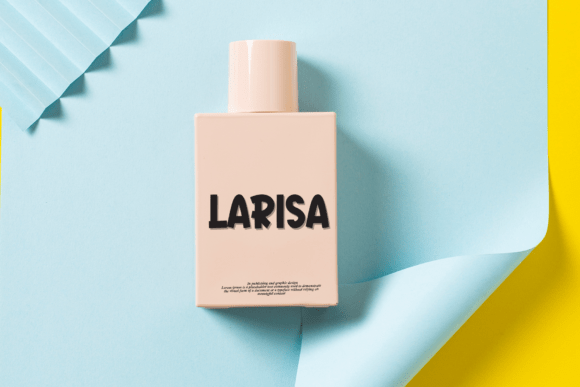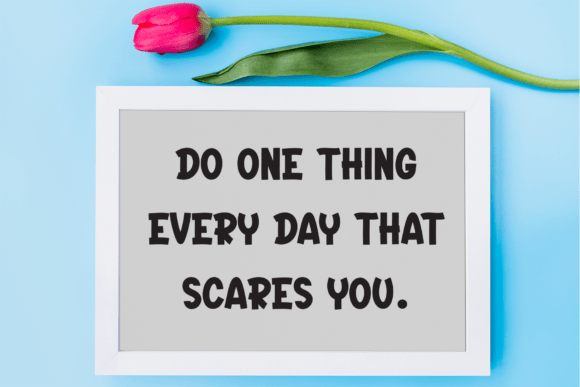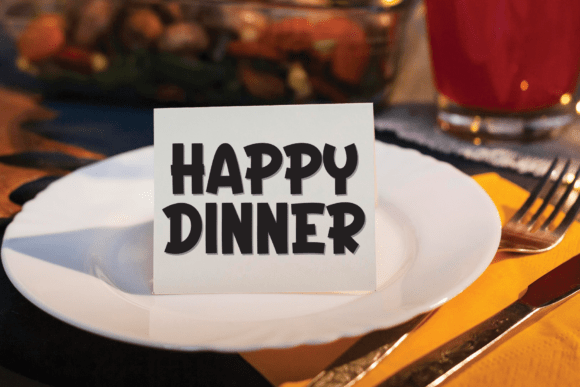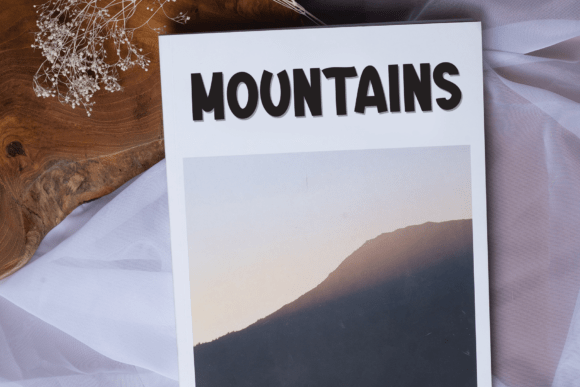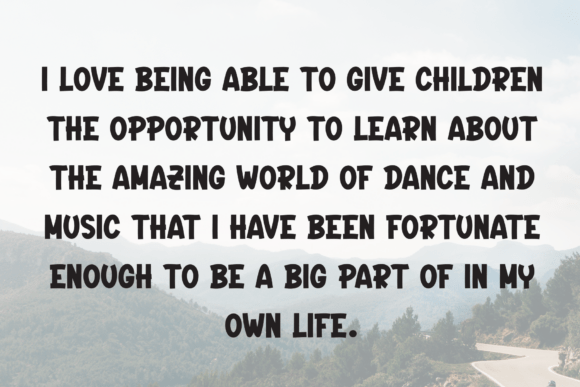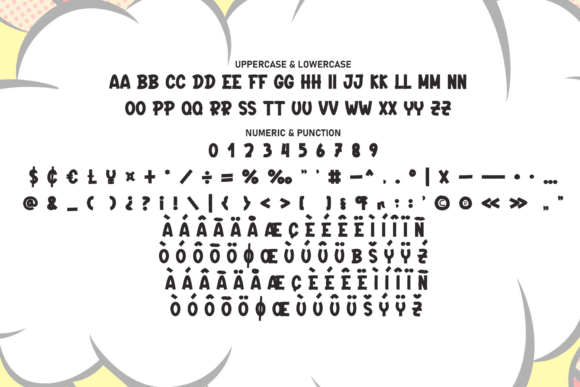
Fancy Comic Font: Elevate Your Designs with a Neat and Casual Display Font
In the world of typography, fonts play a crucial role in conveying the tone and personality of a design. For designers and crafters looking for a font that blends clarity with a relaxed, approachable vibe, Fancy Comic Font is an excellent choice. This neat and casual display font is perfect for creating headlines, posters, packaging, and branding that aims to feel modern yet laid-back.
Clean Lines and Friendly Letterforms
One of the standout features of Fancy Comic Font is its clean lines and friendly letterforms. The font’s design is characterized by its simplicity and elegance, making it easy to read and understand. The clean lines ensure that the text is clear and legible, even at smaller sizes, while the friendly letterforms add a touch of approachability and warmth to the design.
Perfect for Headlines, Posters, and Packaging
Fancy Comic Font is an excellent choice for designers looking to create eye-catching headlines, posters, and packaging. The font’s bold and playful energy makes it perfect for grabbing attention and drawing the viewer in. At the same time, its balanced structure ensures that the text remains readable and easy to understand, even at larger sizes.
Branding and Marketing Applications
In addition to its use in headlines, posters, and packaging, Fancy Comic Font is also well-suited for branding and marketing applications. The font’s modern yet laid-back vibe makes it perfect for companies looking to create a friendly and approachable brand identity. Whether you’re designing a logo, business card, or website, Fancy Comic Font is an excellent choice for adding a touch of personality to your design.
Playful Energy and Balanced Structure
One of the key benefits of Fancy Comic Font is its playful energy and balanced structure. The font’s design is characterized by a sense of movement and energy, making it perfect for designs that need to grab attention and engage the viewer. At the same time, its balanced structure ensures that the text remains readable and easy to understand, even in longer blocks of text.
Ideal for Designs that Call for Style and Readability
Fancy Comic Font is ideal for designs that call for both style and readability. Whether you’re working on a project that requires a bold and eye-catching headline or a more subtle and elegant text, this font is an excellent choice. Its versatility and flexibility make it perfect for a wide range of design applications, from print and digital media to packaging and branding.
Tips for Using Fancy Comic Font
Here are a few tips for using Fancy Comic Font in your designs:
- Use Fancy Comic Font for headlines and titles to add a touch of personality and style to your design.
- Pair Fancy Comic Font with other fonts to create a unique and visually appealing typography.
- Use Fancy Comic Font for branding and marketing applications to create a friendly and approachable brand identity.
In conclusion, Fancy Comic Font is a neat and casual display font that blends clarity with a relaxed, approachable vibe. Its clean lines and friendly letterforms make it perfect for headlines, posters, packaging, and branding that aims to feel modern yet laid-back. With a balanced structure and playful energy, Fancy Comic Font brings personality to any project without overwhelming the message. Whether you’re a designer or crafter, Fancy Comic Font is an excellent choice for adding a touch of style and readability to your design.